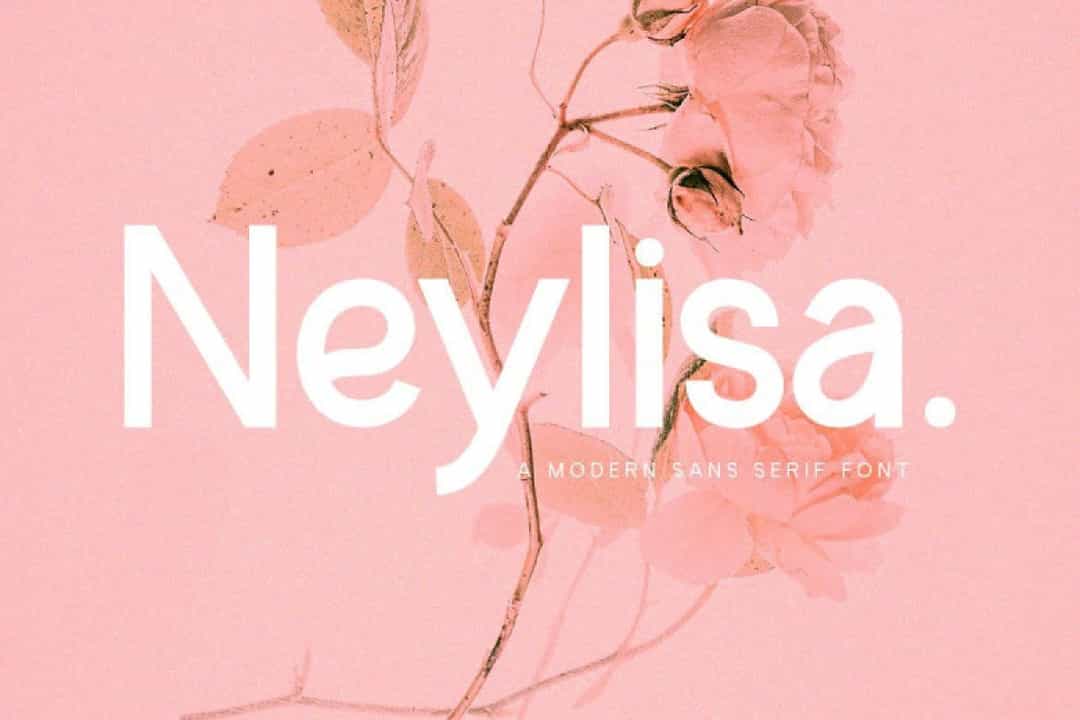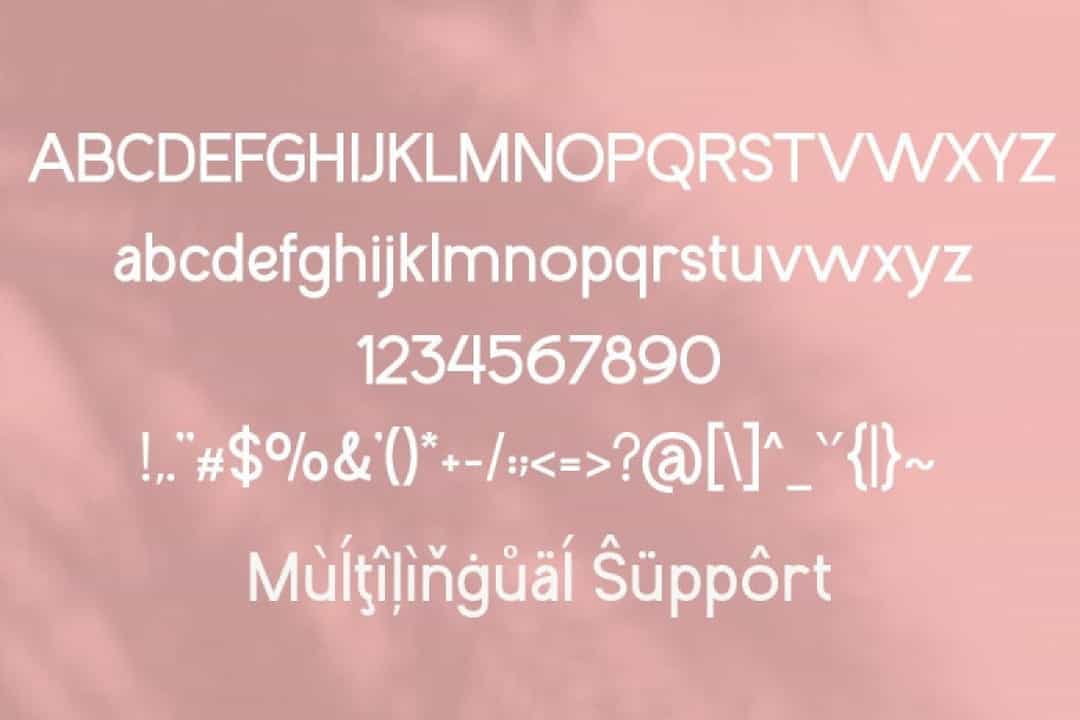
Neylisa is a custom-designed and minimal sans serif font that makes an excellent base for creating logos, branding materials, striking packaging designs, strong headers for websites and much more!